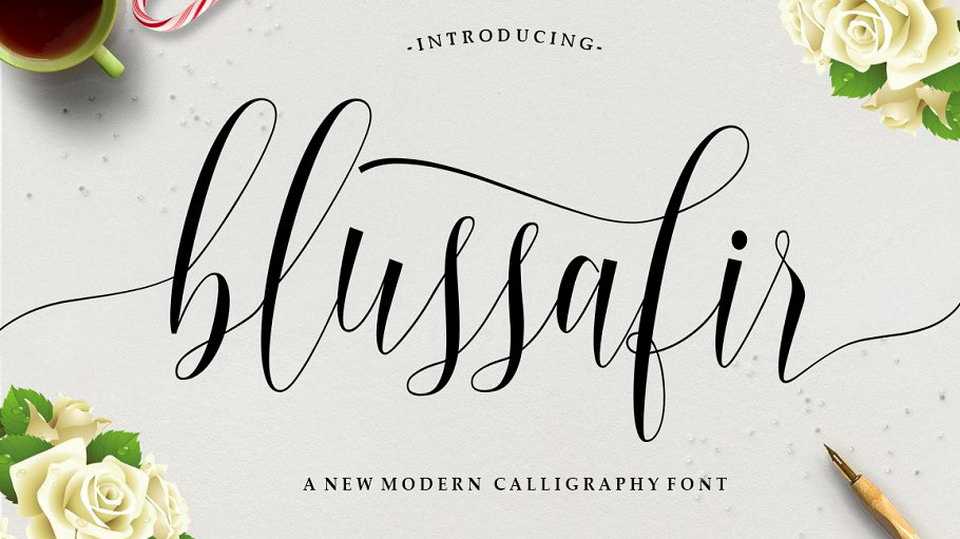
Download Blussafir Script, a stunning modern calligraphy font with casual style and pretty swashes, that be used for various purposes such as logo, product packaging, wedding invitations, branding, headlines, signage, labels, signature, book covers, posters, quotes and more.